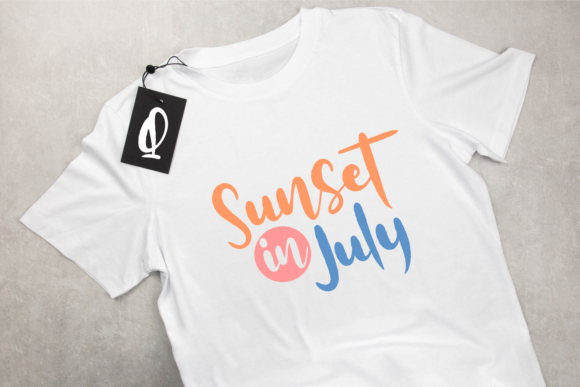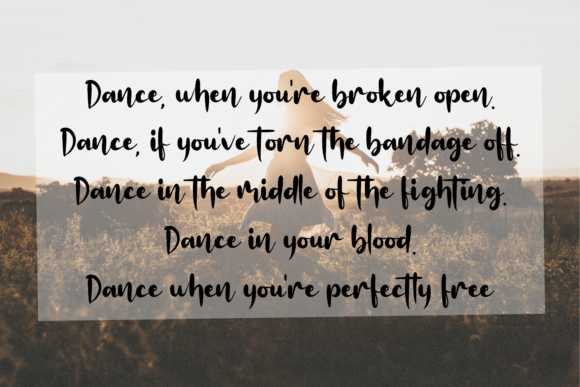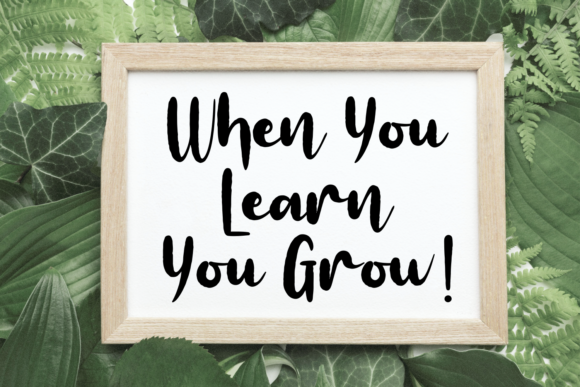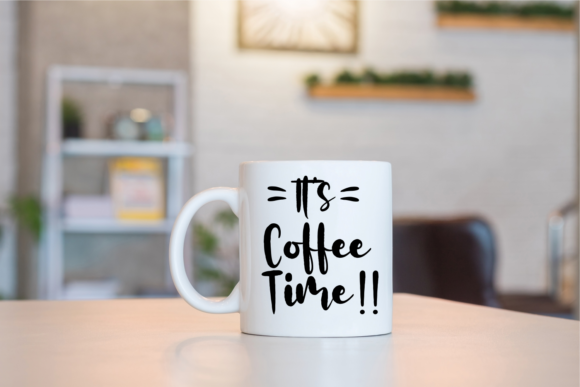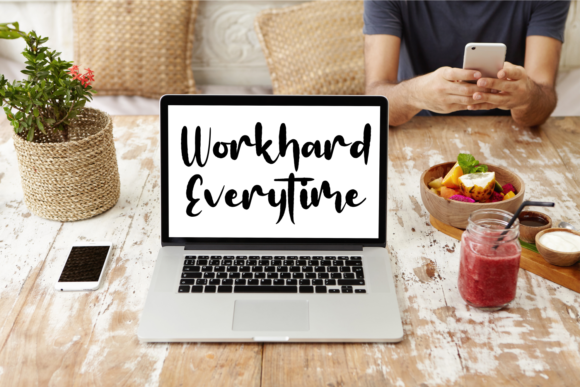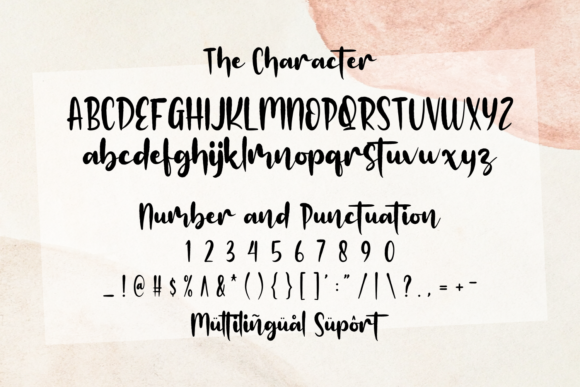
Introduction to Grateisey Font
Have you ever been working on a creative project, pouring your heart and soul into every detail, only to realize that the right font is missing to tie everything together? This is exactly what happened to me when I stumbled upon the Grateisey Font. Its chunky lettered and stylish script design instantly captured my attention and took my project to the next level.
As a designer, I can attest to the importance of having a versatile design resource like the Grateisey Font in your toolkit. Whether you’re working on a free download project or a paid commission, this font is sure to elevate your creative output and make your clients take notice.
With its transparent background and high-quality design, the Grateisey Font is perfect for a wide range of crafting ideas, from cards and branding to labels and much more. In this article, we’ll take a closer look at what makes this font so special and how you can incorporate it into your next creative project.
Key Features of Grateisey Font
- Transparent background for seamless integration into various design elements
- Includes a range of characters and glyphs to support multiple languages
- Font size: scalable to any size, ideal for logos, headings, and body text
- Unique, modern design aesthetic that can add a touch of sophistication to any project
Honest Review: Grateisey Font
As a designer, I’m always on the lookout for high-quality design resources that can elevate my creative projects. Recently, I stumbled upon the Grateisey Font, and I’m excited to share my honest review with you.
- ✨ High-quality typography: The Grateisey Font boasts beautiful, detailed letterforms that are perfect for a variety of design projects.
- ✨ Transparent background: The font’s transparent background allows for seamless integration with images and other design elements.
- ⚠️ Limited font weights: While the font is beautiful, it’s limited to a few font weights, which may not be suitable for all design projects.
- ⚠️ Not ideal for body text: The font’s design makes it more suitable for headings and titles rather than body text.
Overall, I’m impressed with the Grateisey Font’s quality and versatility. While it may have some limitations, it’s a great addition to any designer’s toolkit. If you’re looking for a high-quality font for your creative project, the Grateisey Font is definitely worth checking out.
Tips for Getting the Most Out of Grateisey Font
For the best results, use the Grateisey Font on a high-quality image or design element. Experiment with different font sizes and styles to add visual interest to your project. You can also use the font in combination with other design elements, such as graphics or images, to create a unique and eye-catching design.
The Grateisey Font is ideal for use in a variety of creative projects, including logos, business cards, and social media graphics. Its unique design and high-quality output make it a popular choice among designers and creatives.